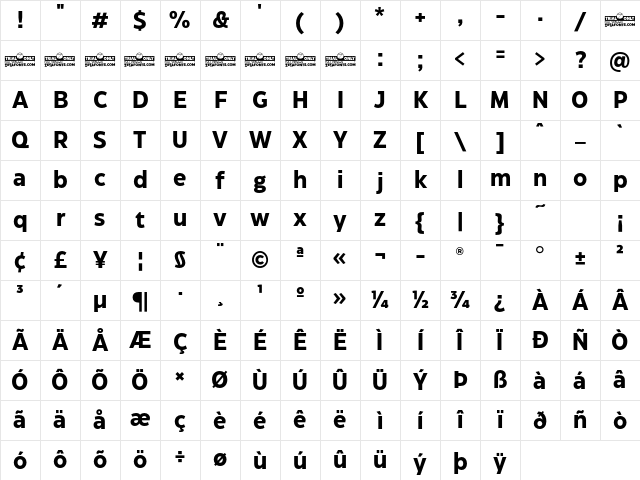
Eastman Grotesque Trial Bold Free Font
Eastman Grotesque Trial Bold
Foundry: Zetafonts
Designer: Francesco Canovaro
Design Context for Eastman Grotesque Trial
Eastman Grotesque Trial is a composed and adaptable typeface that performs quietly and consistently across a wide range of design contexts. Its bold stroke weight gives it real presence on the page.